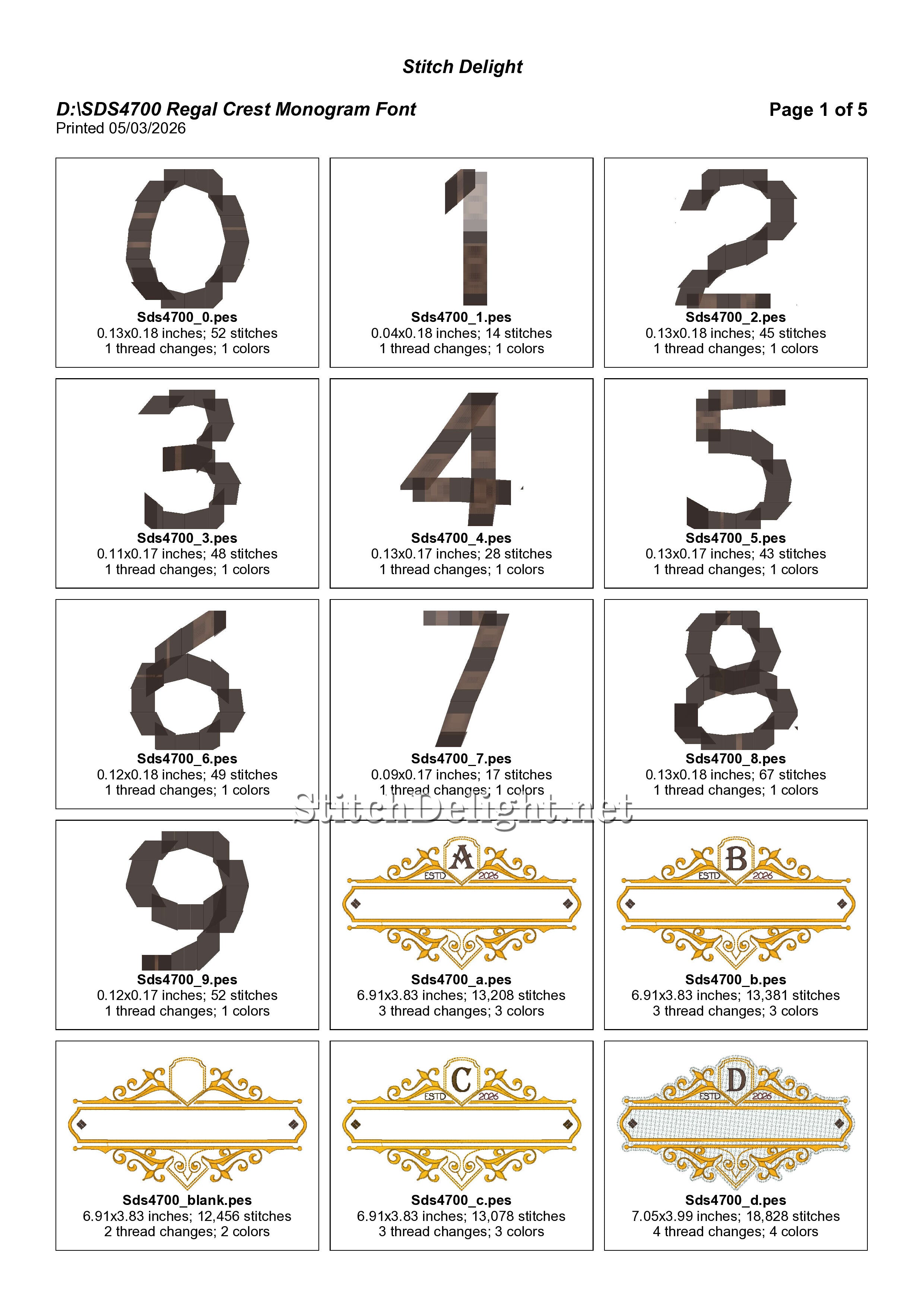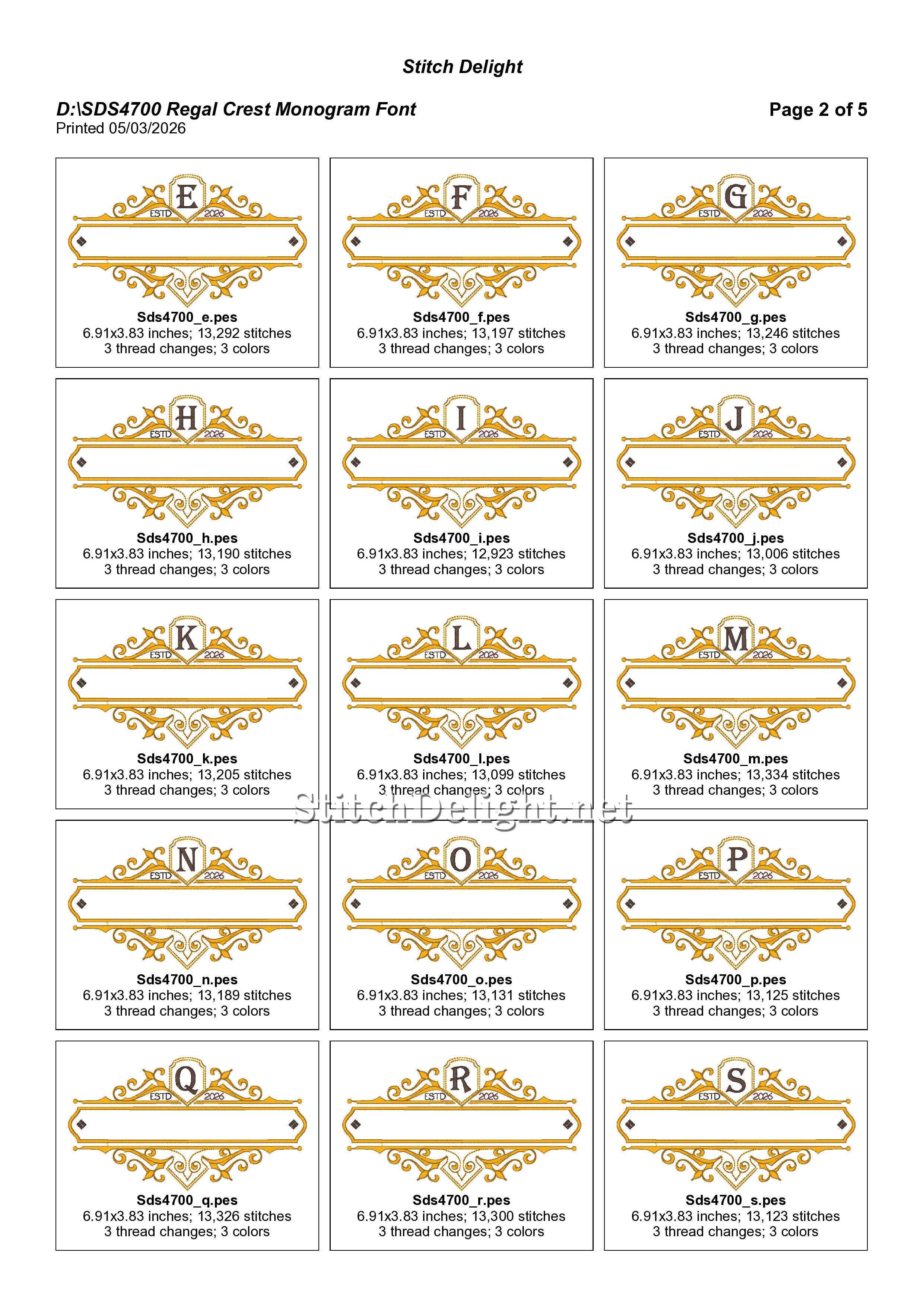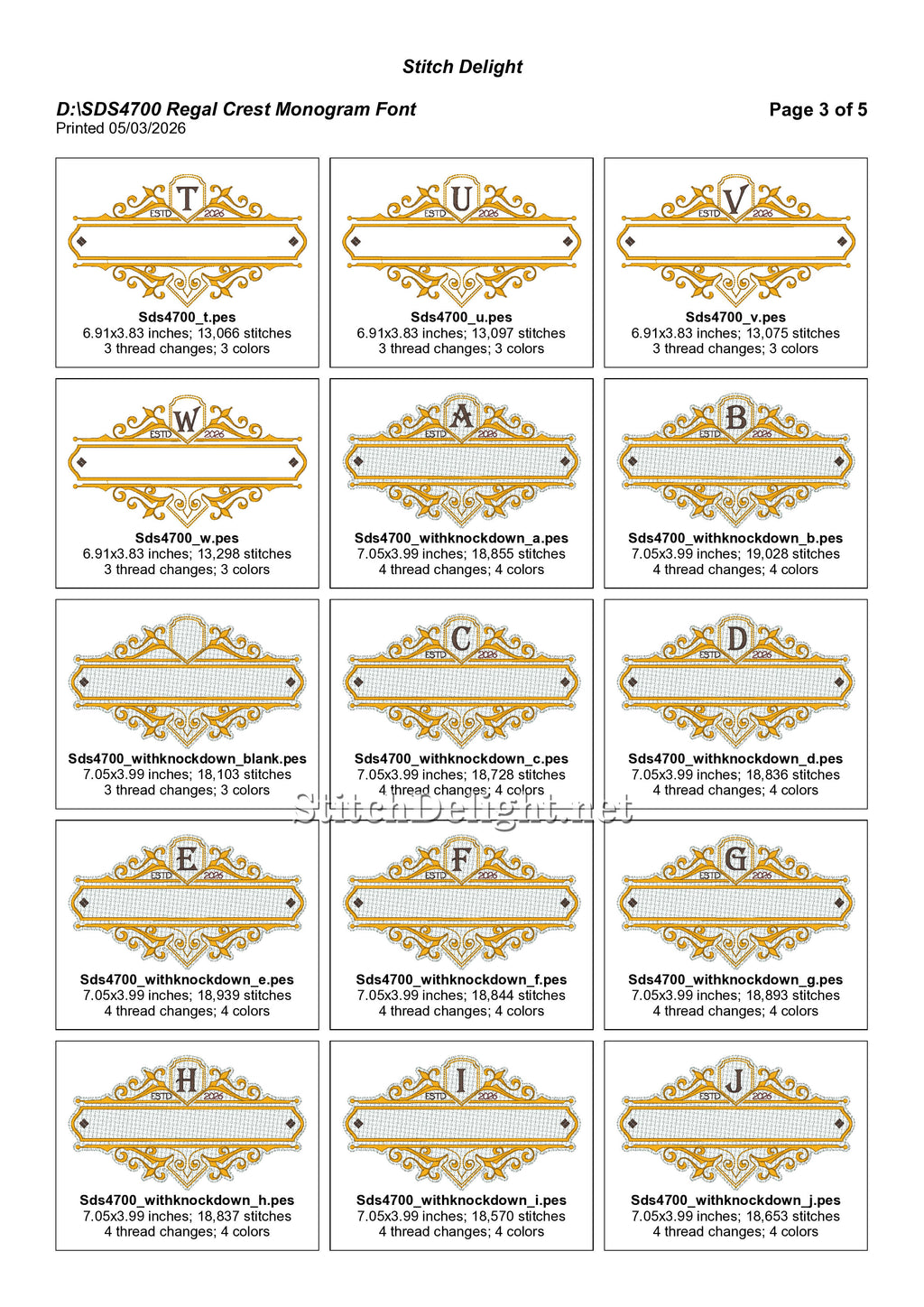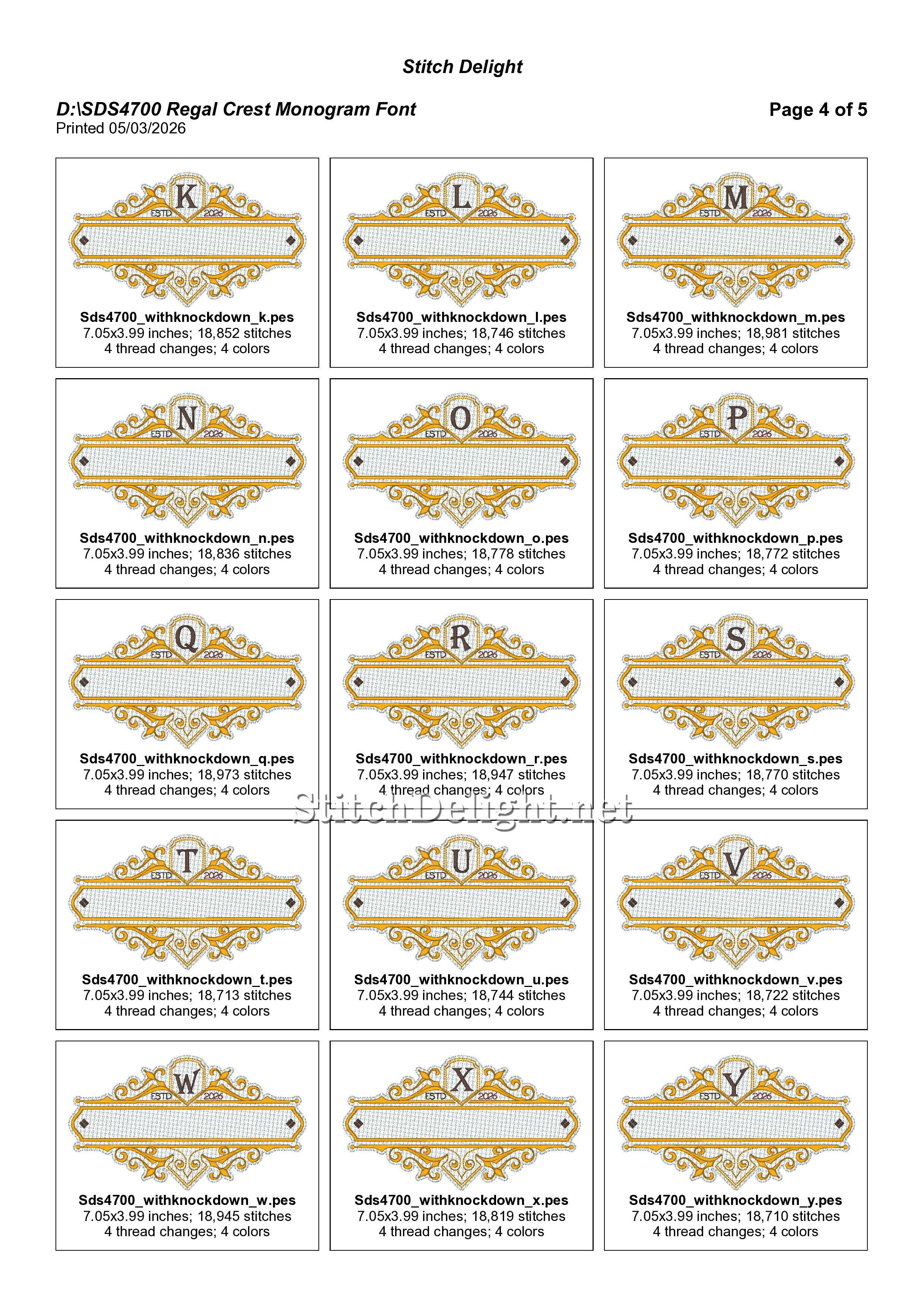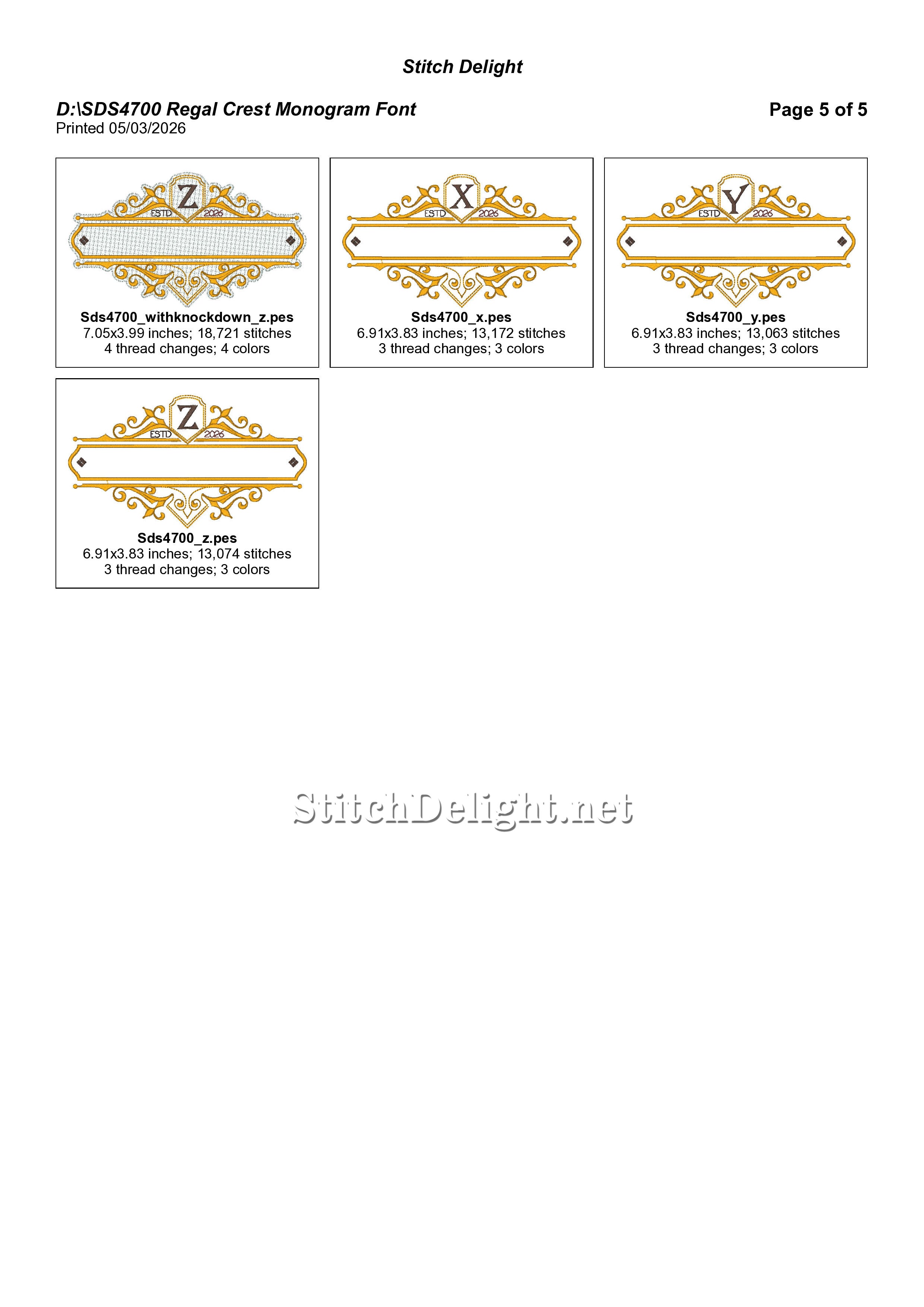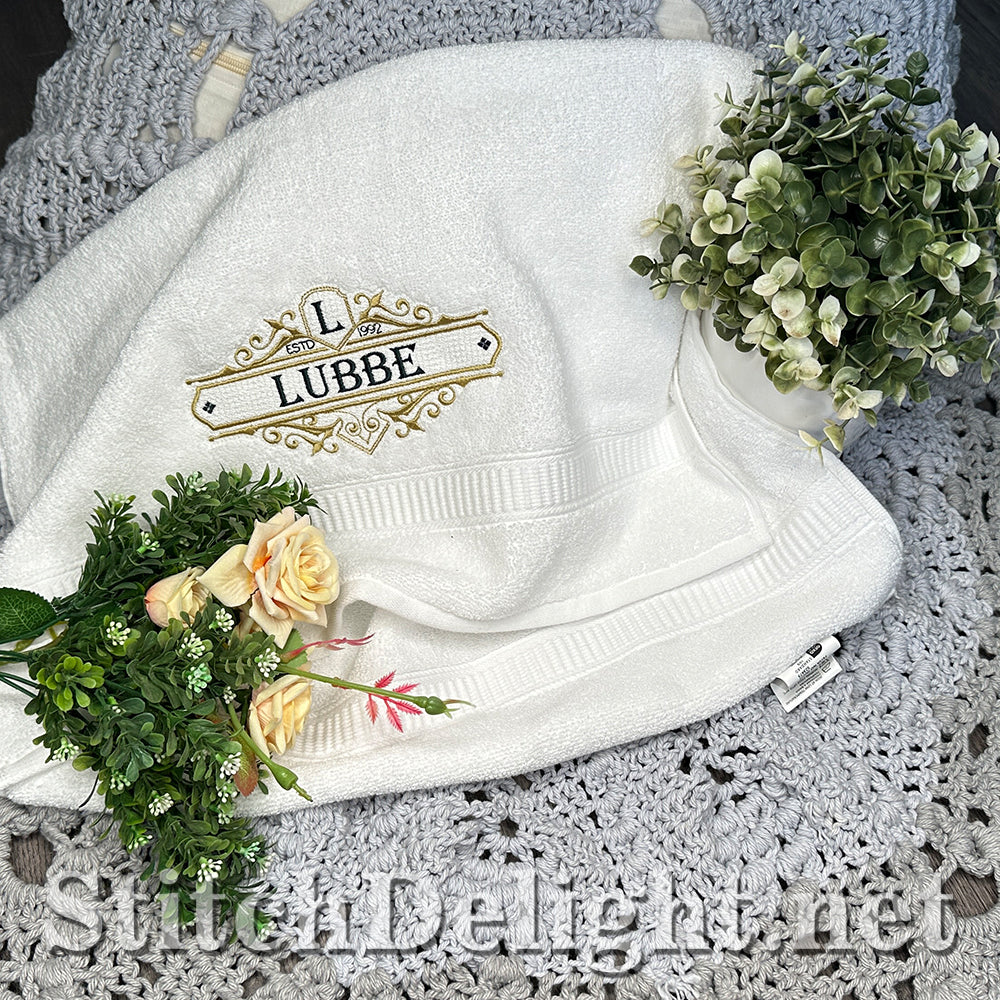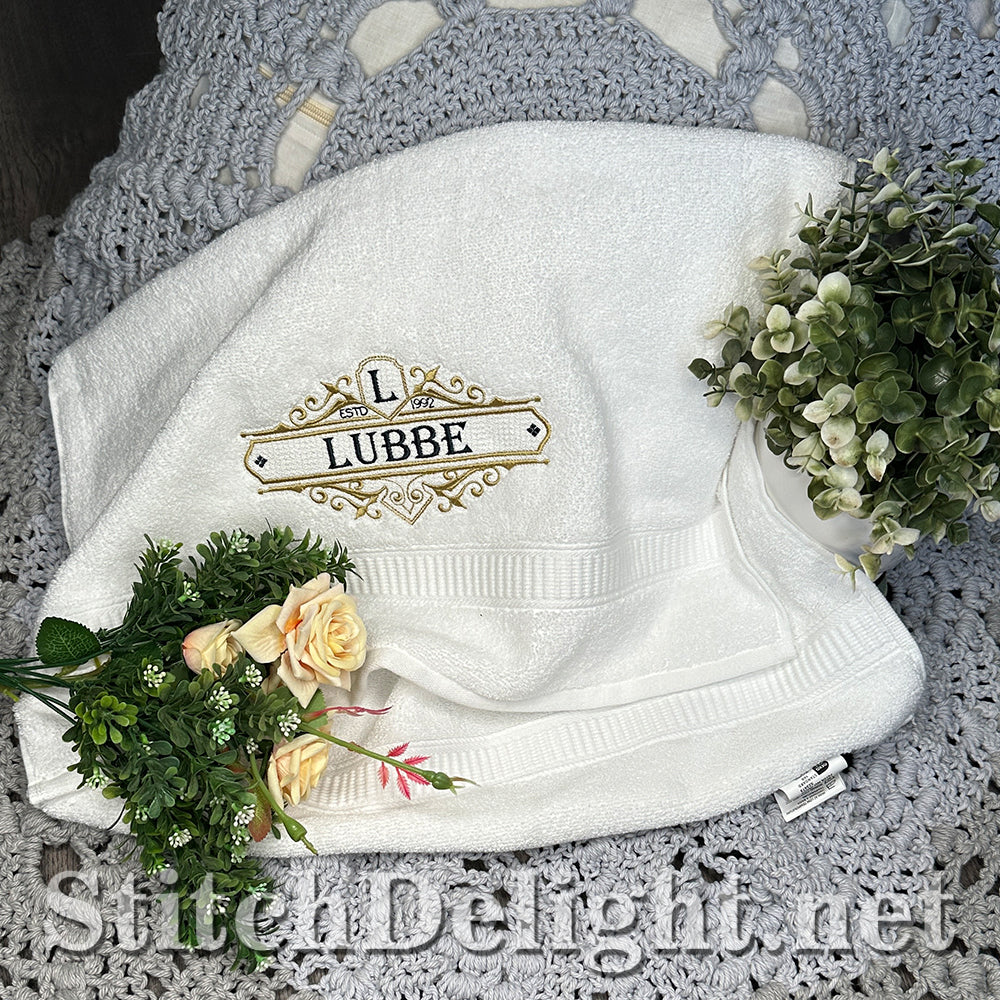
SDS4802 Regal Crest Monogram Font
This monogram set is perfect for napkins, towels, linen and such a elegant and royal personal touch.  I have included for you two versions, one for sheeting / cotton fabrics and one for towels or thicker fabrics with a knock down stitch.  I also included a blank frame so you can personalize with a font of your choosing.  The tiny numbers are also included so you can personalized with your own ESTD year.  Just omit the last step and insert your own numbers.